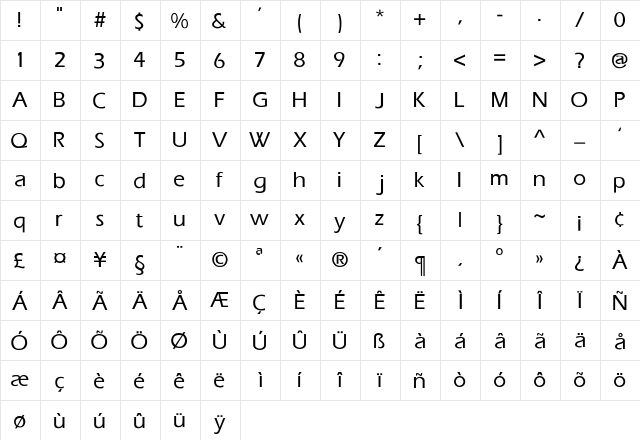
Semolina-Medium Regular
Design Context for Semolina-Medium Typeface
Semolina-Medium is a composed and adaptable typeface that performs quietly and consistently across a wide range of design contexts.
Pro Tip: Use Semolina-Medium in both headline and body roles to test its range before committing to a single application.